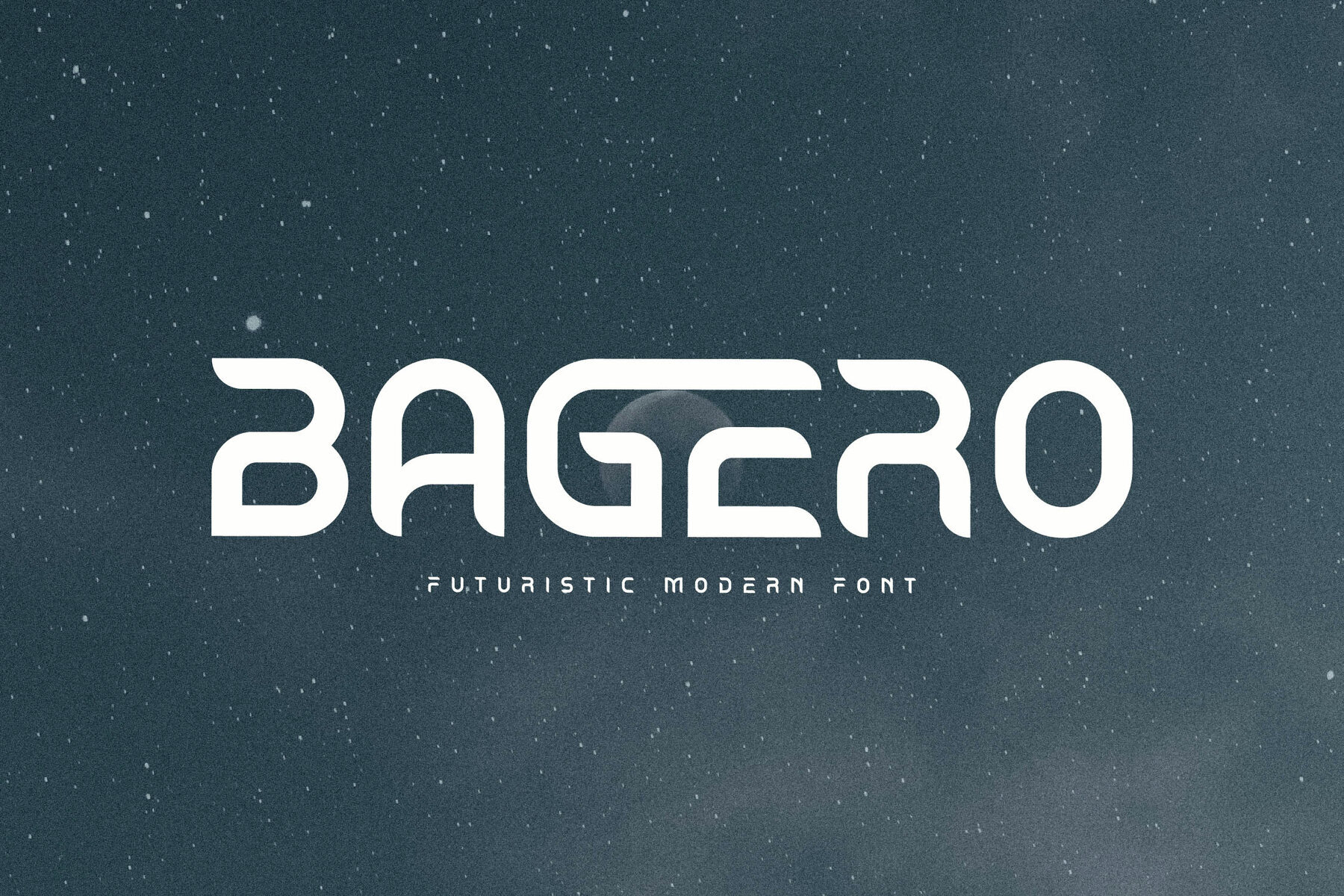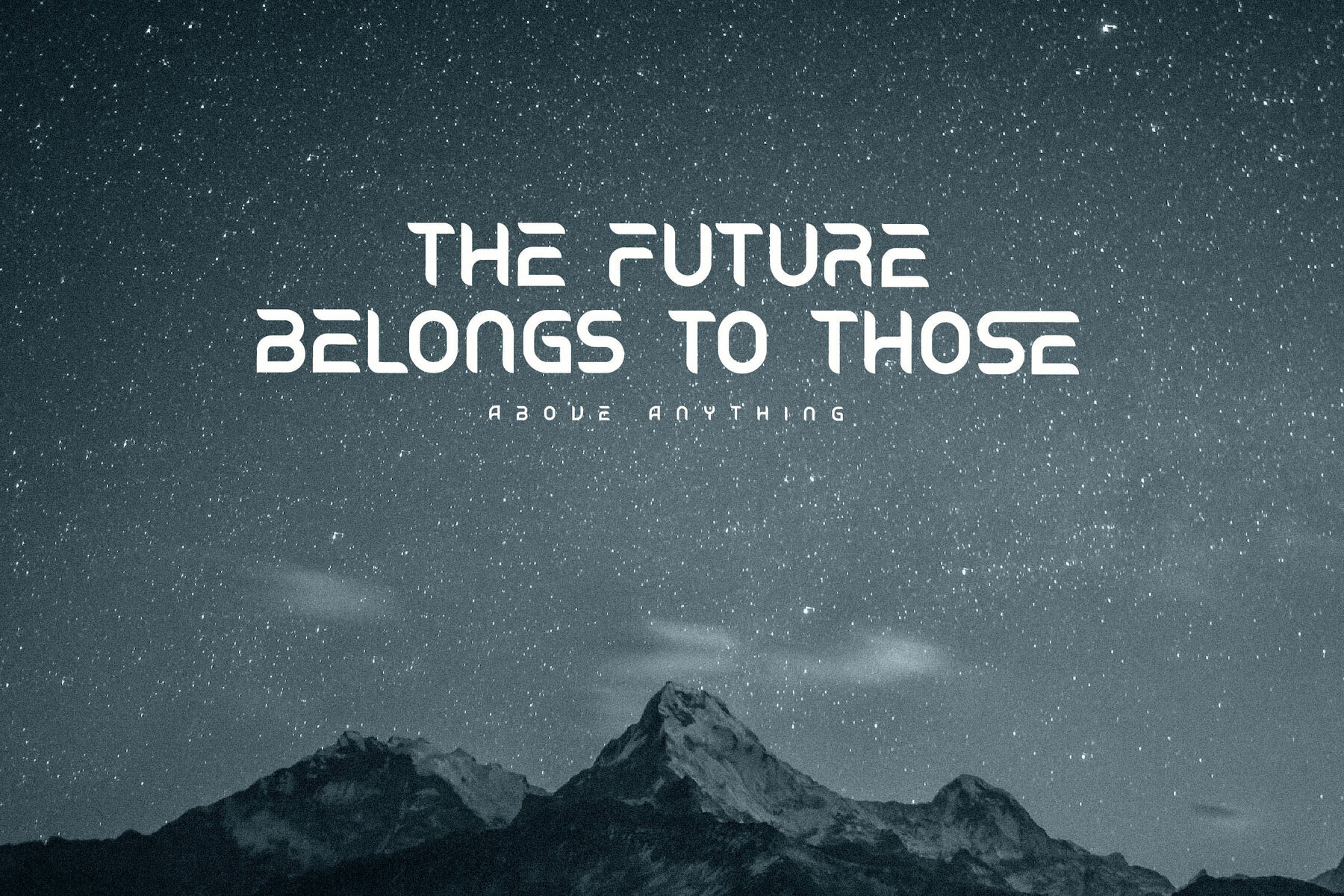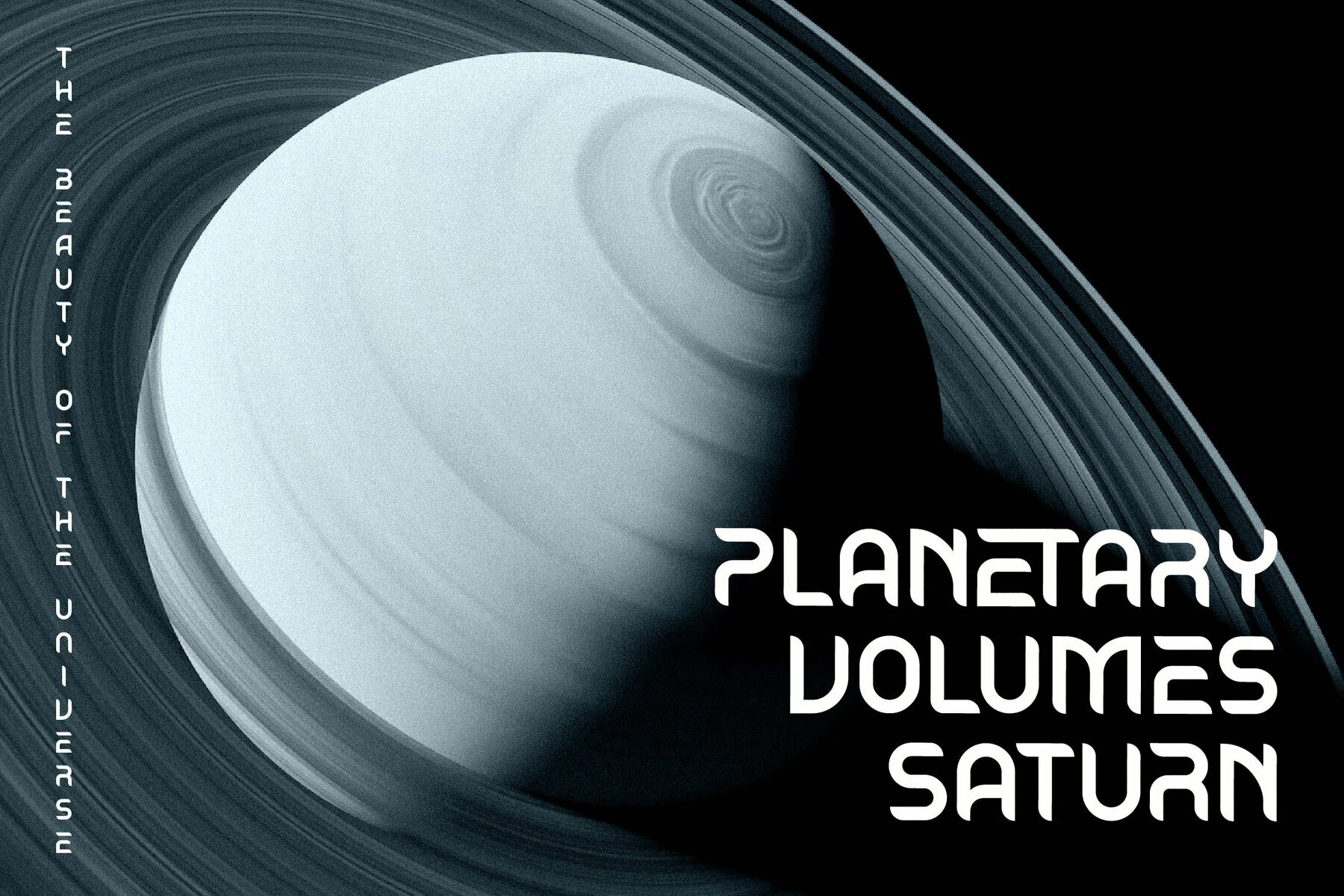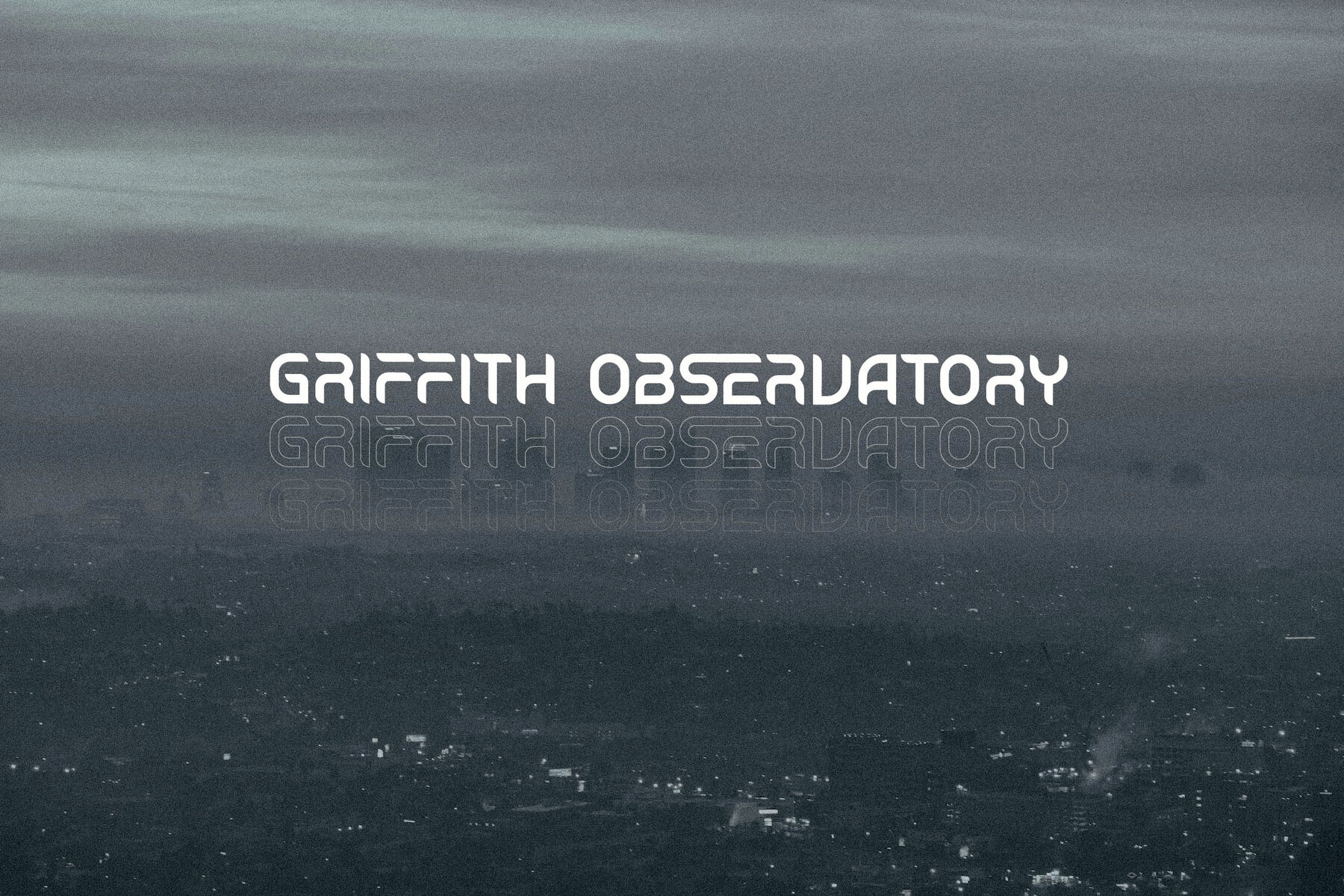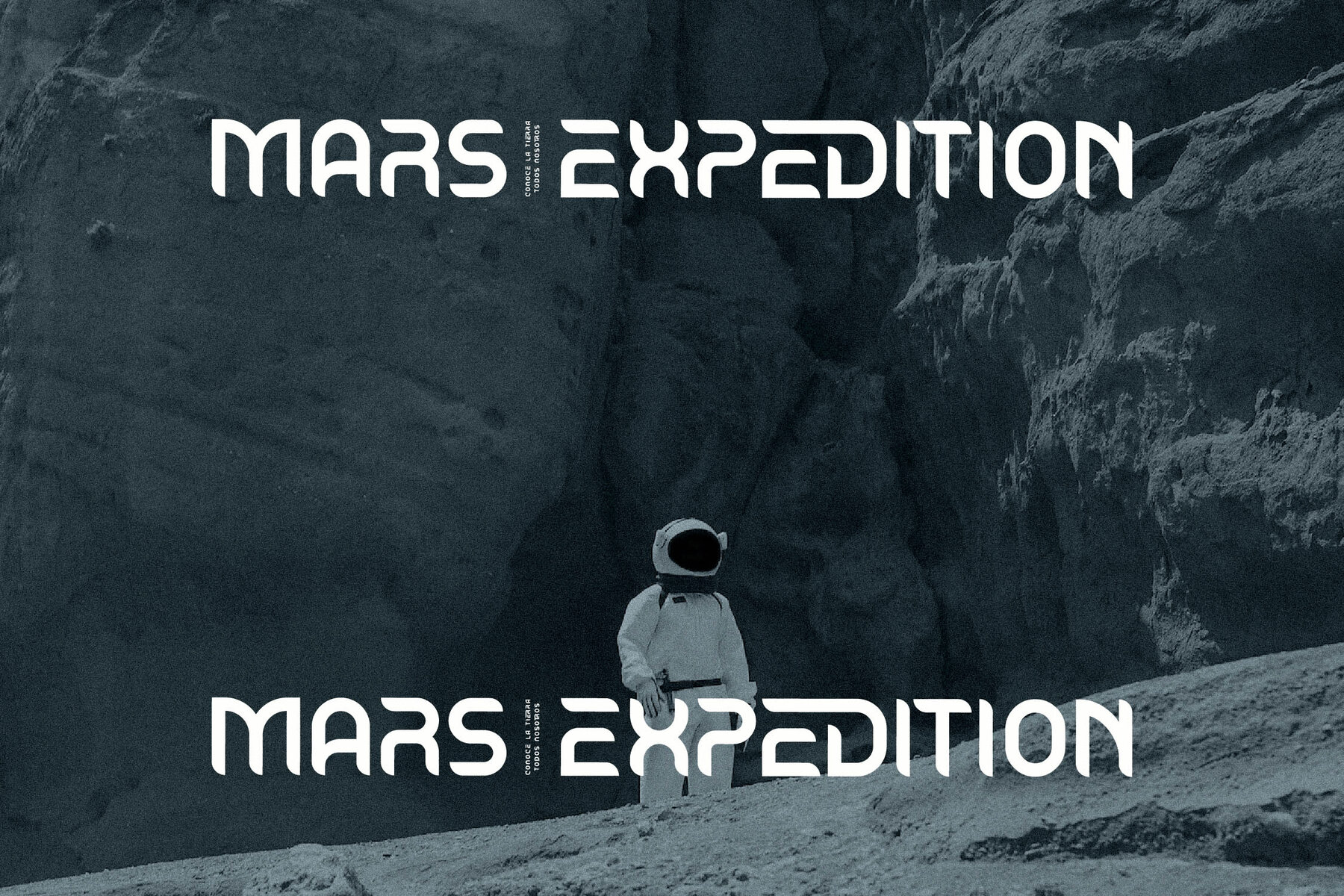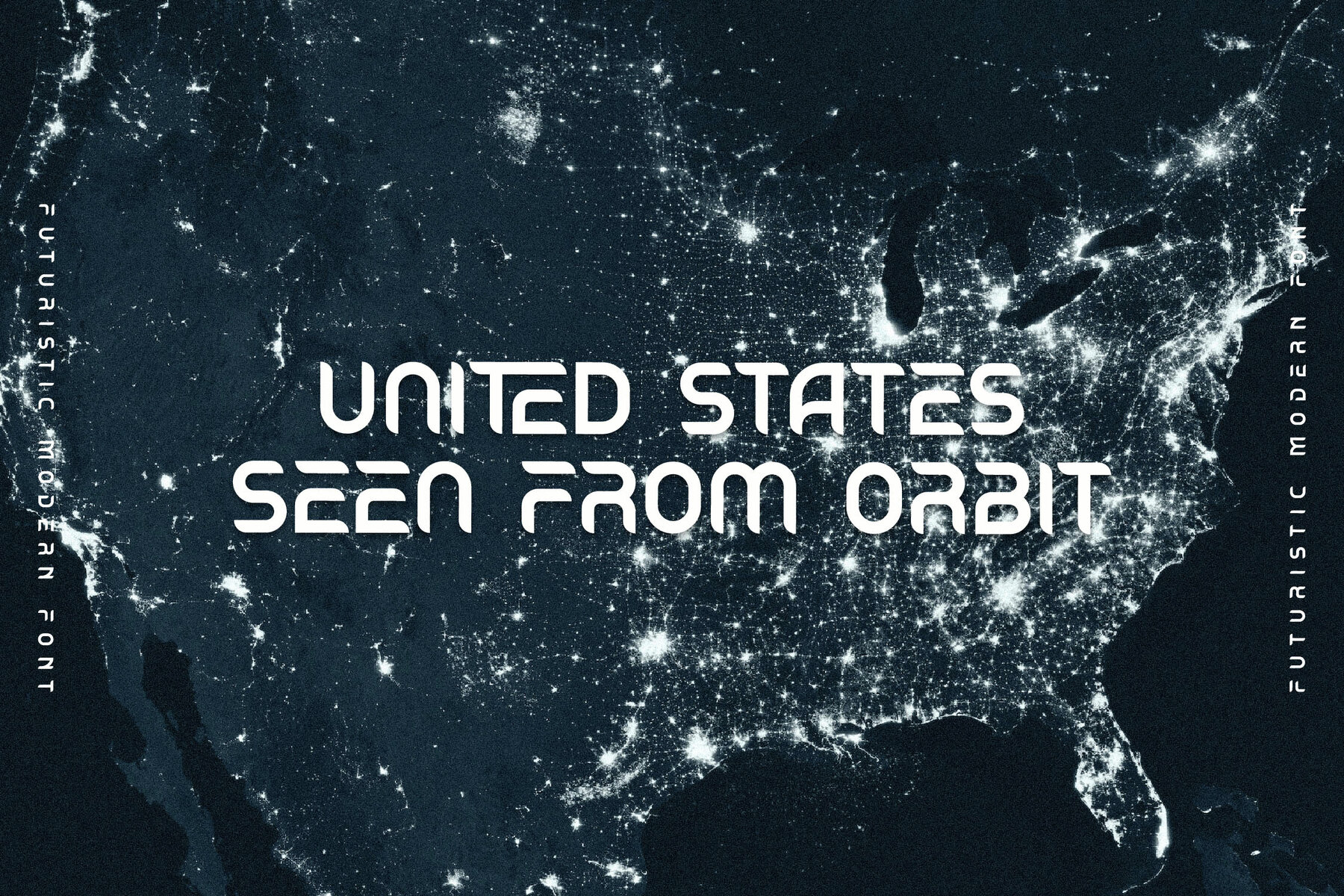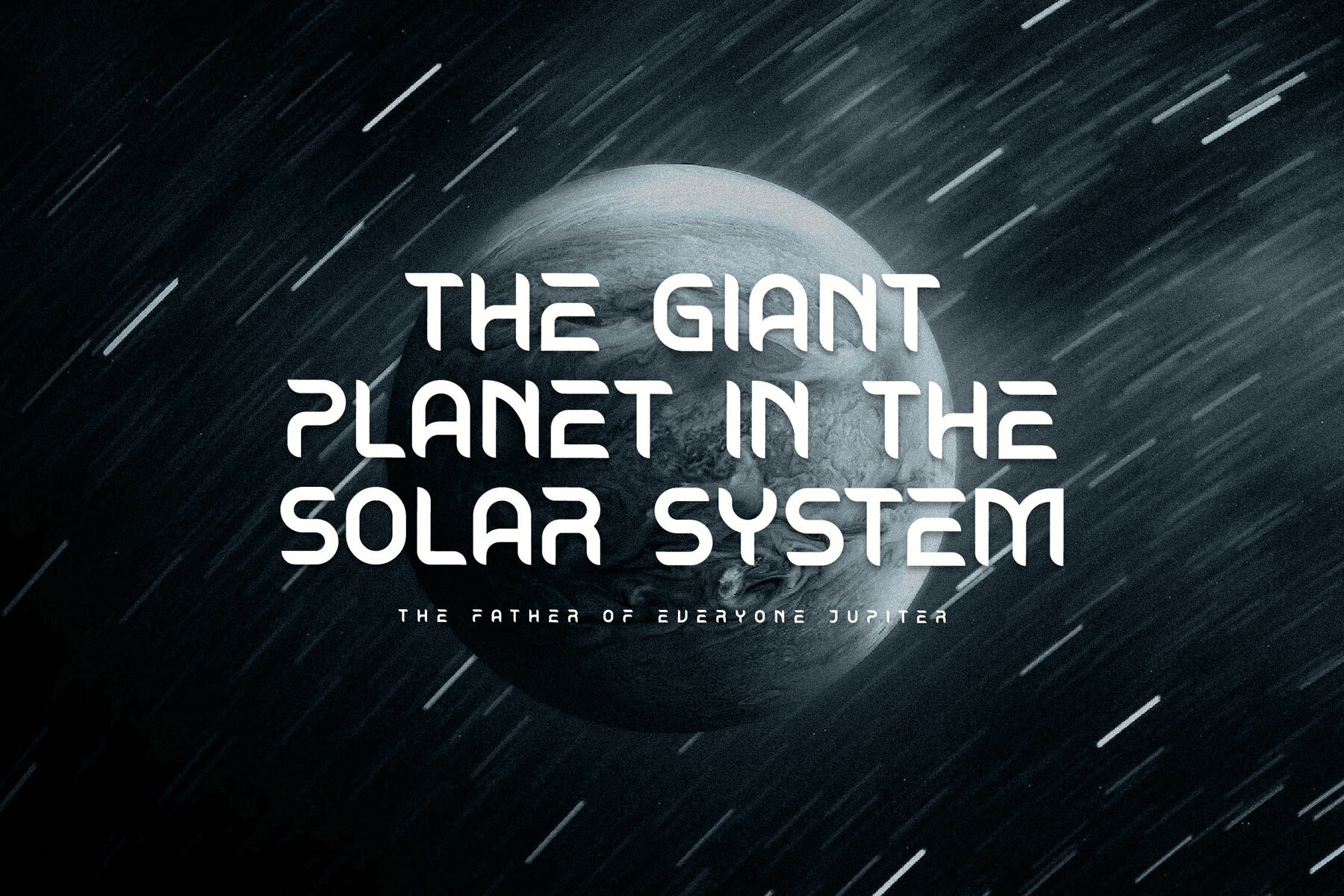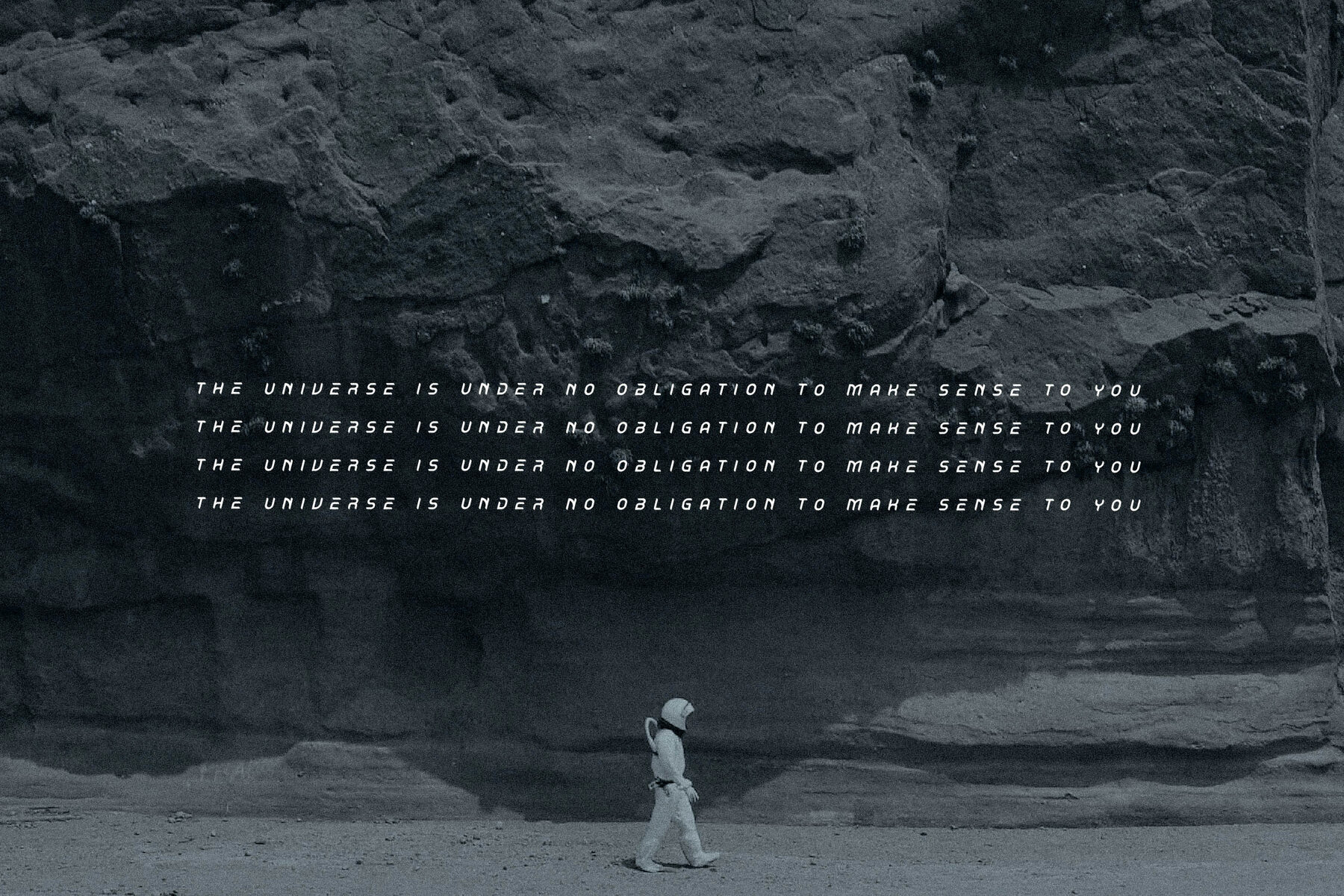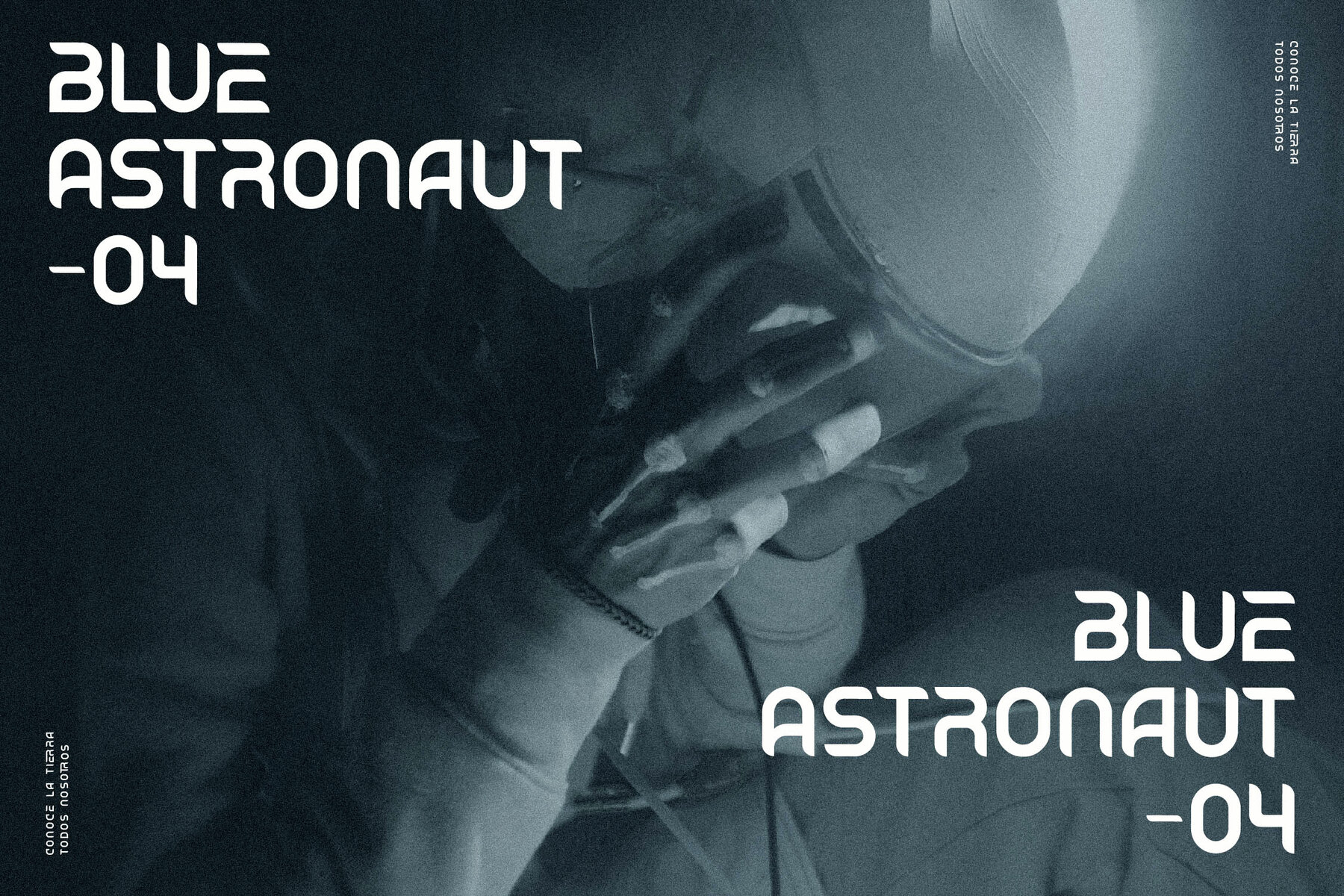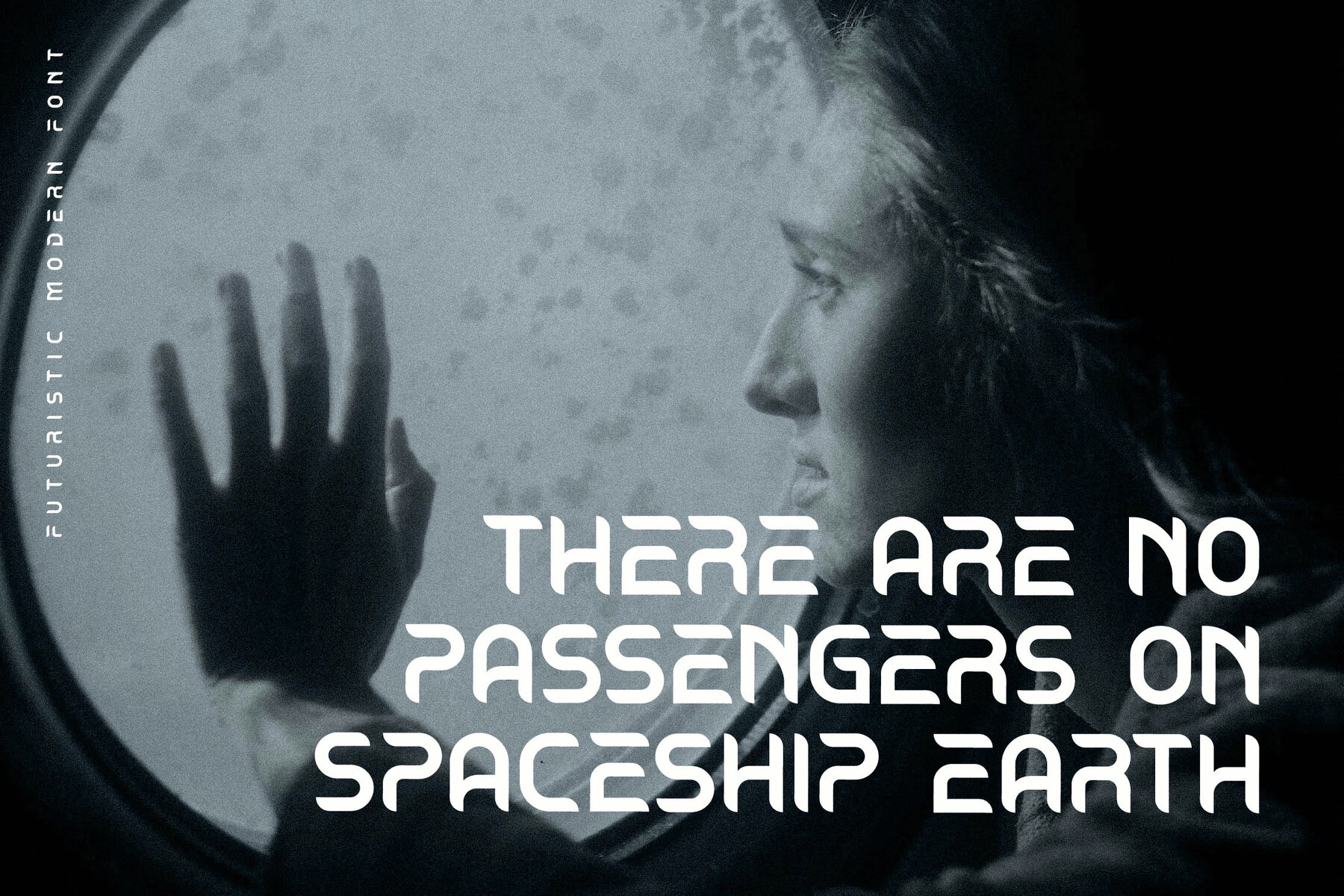
Bagero Font
Introducing Bagero Typeface, a sophisticated serif font by Storytype Studio. With its modern yet classic design, Bagero adds a touch of elegance to any project. Ideal for luxury branding, captivating book or movie titles, high-fashion labels, and stylish magazines, this typeface seamlessly blends timeless appeal with a contemporary edge.Bagero Typeface: Modern Elegance by Storytype Studio
Features of Bagero Typeface